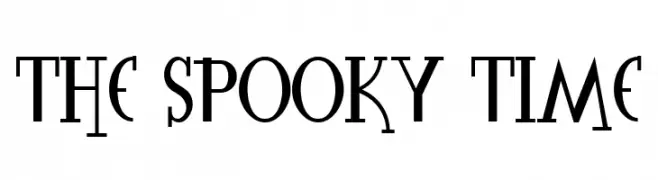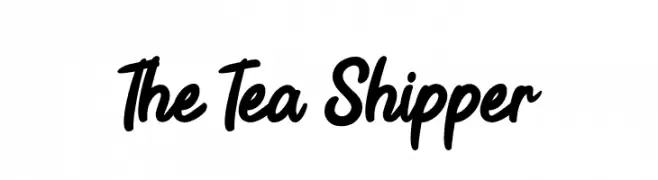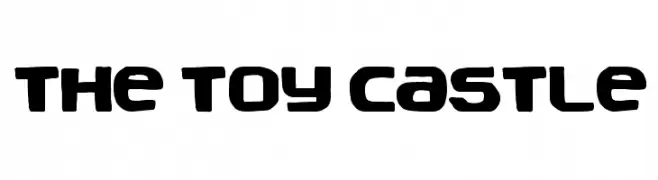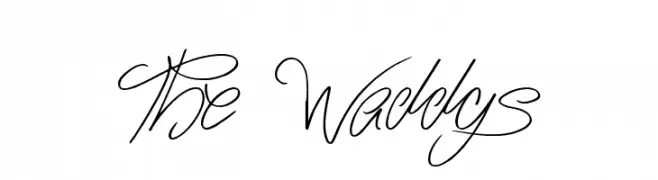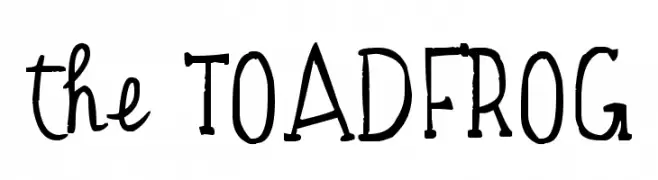
A spooky, decorative font with sharp serifs and a Halloween-inspired style.
A modern, elongated font with a unique, stilt-like design.
A bold, dynamic script font with fluid, connected letterforms.
A playful, hand-drawn font with a whimsical and dynamic style.
A playful, bold font with rounded edges and a blocky appearance.
A playful, bold font with rounded edges and a chunky, toy-like appearance.
A flowing, elegant script font with a handwritten style.
A tall, narrow font with clean, elongated letterforms and a minimalistic style.